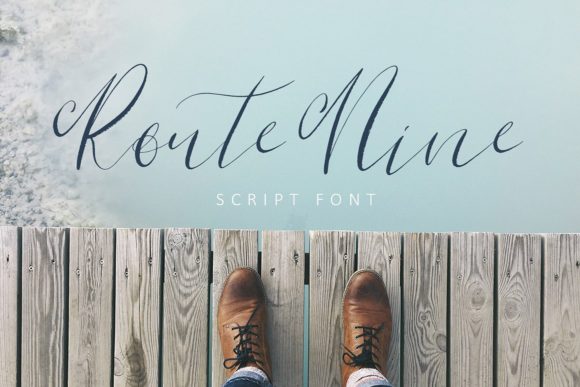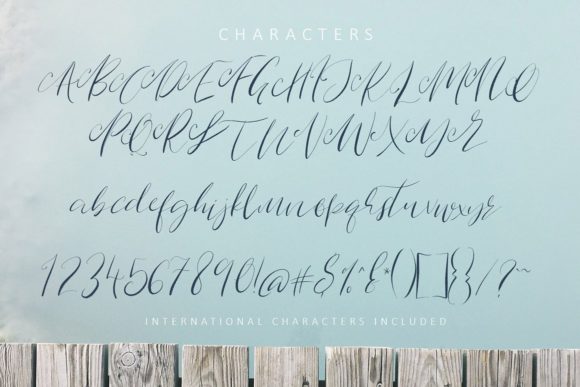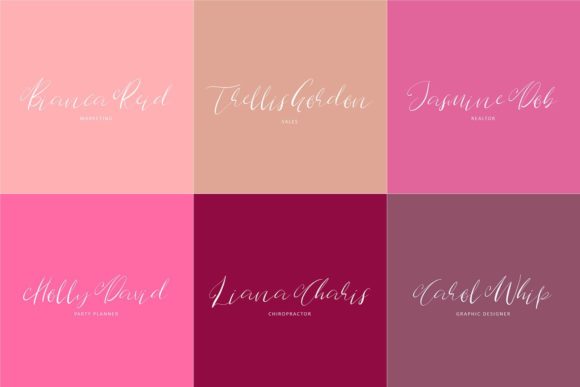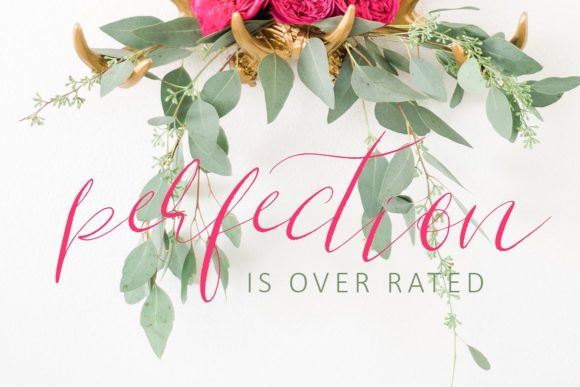
Rout Nine Script Font
About Rout Nine Script Font
The Rout Nine is a beautiful hand drawn script with scrolls on all uppercase letters. It has a natural writing and is perfect for adding a personal touch to your designs.